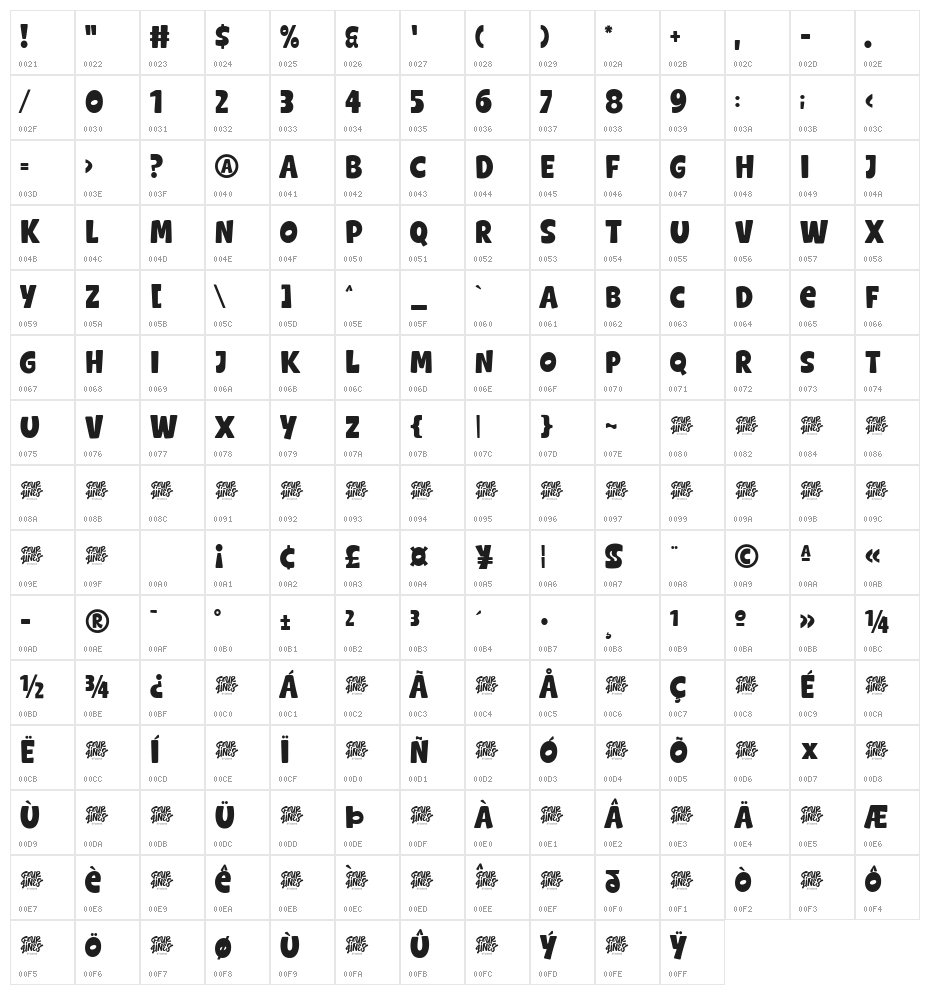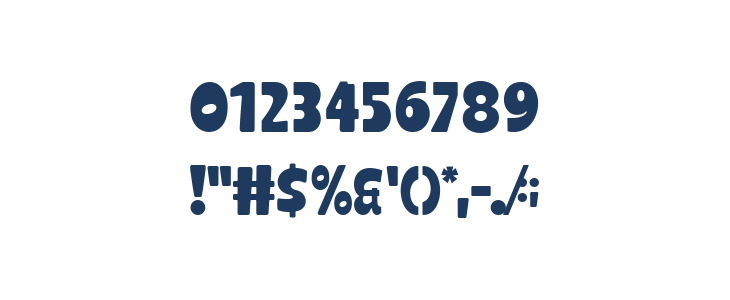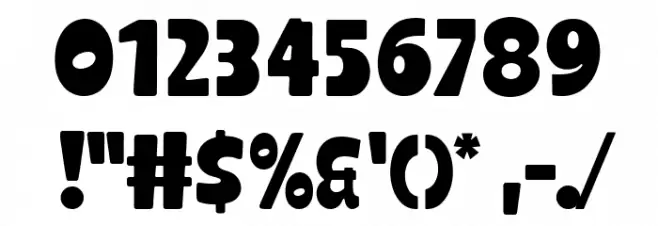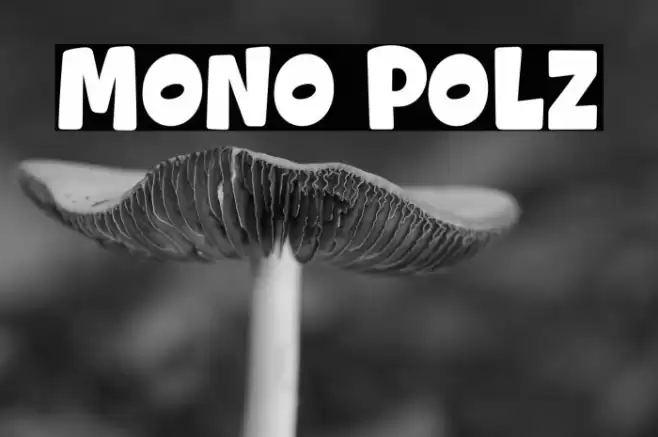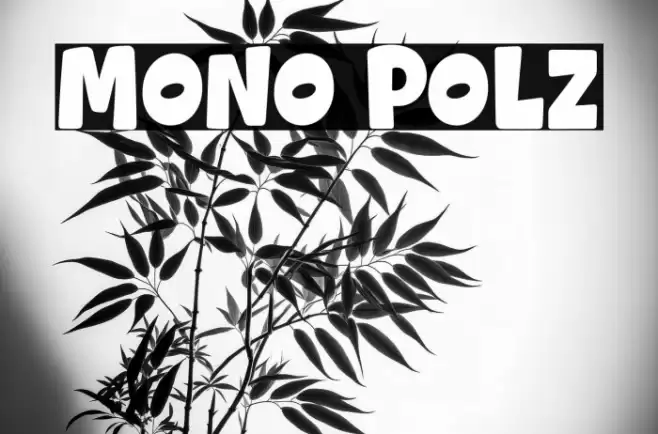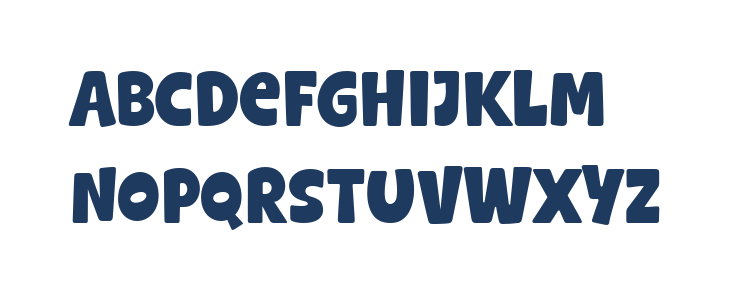
Mono Polz Font
Mono Polz Description
This font features a bold, playful style with rounded edges and a slightly condensed appearance. The characters are uniformly thick, giving it a strong presence and making it highly legible. The uppercase and lowercase letters maintain a consistent weight, contributing to a cohesive look. The numerals and special characters are designed to match the overall style, ensuring a harmonious appearance across all text elements. The font's unique personality makes it suitable for creative and informal applications, where a touch of whimsy is desired.
| Width | Condensed |
| Overall Style | Playful |
| Proposed Projects | Ideal for children's books, playful branding, posters, and creative packaging. |